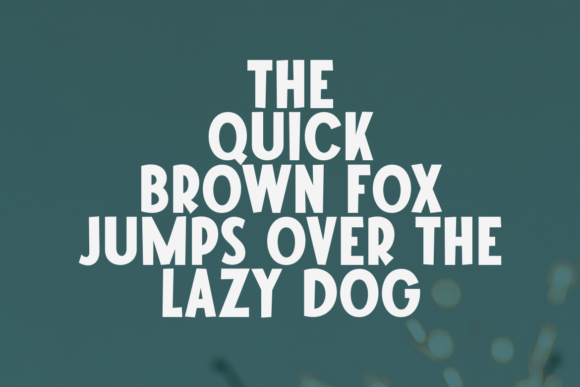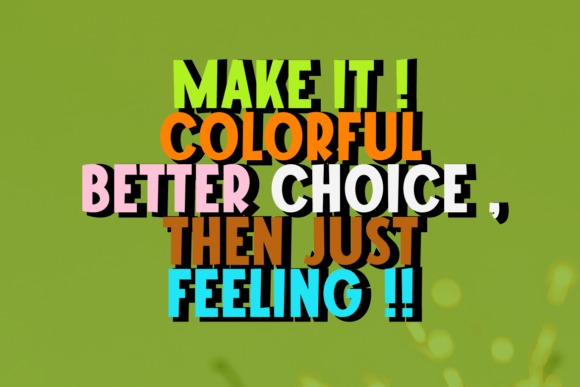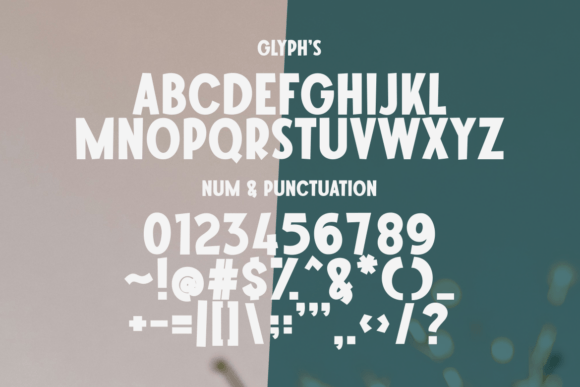
Introduction to Krens Tonben Font Font
Fonts play a crucial role in design, and the Krens Tonben Font font is a typeface that brings both character and versatility to any project. Whether you’re working on a branding project, a website, or a print design, the Krens Tonben Font font offers a unique style that can elevate your work.
Immerse yourself in the festive spirit with ‘Krens Tonben’ font.
Perfectly designed to elevate the atmosphere of joyous events such as children’s birthdays and similar celebrations, Krens Tonben helps deliver a lively and vibrant touch to your design themes This font is your artistic ally in creating impactful and joy-provoking visual messages.
The Krens Tonben Font font is more than just a typeface – it’s a design tool that helps you communicate your message with style and clarity. Its unique character set and versatile design make it suitable for a wide range of applications, from elegant invitations to bold headlines.
With its carefully crafted letterforms and balanced proportions, the Krens Tonben Font font ensures readability and visual appeal across all mediums.
What makes Krens Tonben Font font special?
The Krens Tonben Font font stands out with its unique design, exceptional readability, and versatility across various design applications.